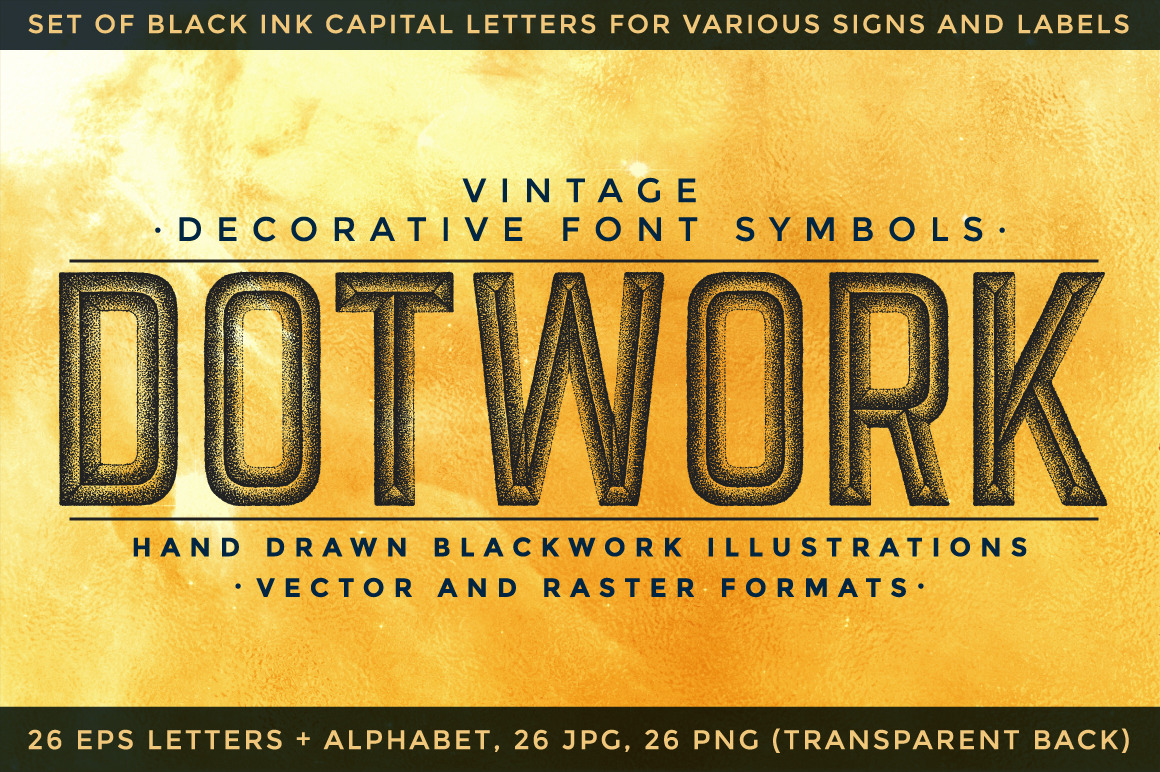
DOTWORK decorative font symbols
This vintage alphabet compiled from the high detail hand drawn illustrations in dotwork (tattoo) style, painted by black archival ink liners. Here is all 26 capital letters - suitable for various retro signs and labels, decorative headlines, monograms and many other. All letters assembled as monochrome editable (colors and scale) vector images, raster PNG (with transparency background) and JPG versions. Vintage textures include.